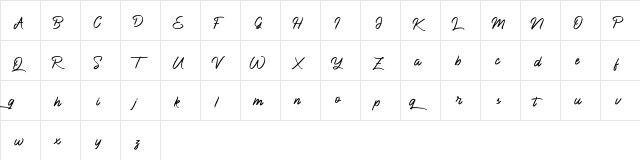
BlueKing Regular
Design Context for BlueKing Typeface
BlueKing is a composed and adaptable typeface that performs quietly and consistently across a wide range of design contexts.